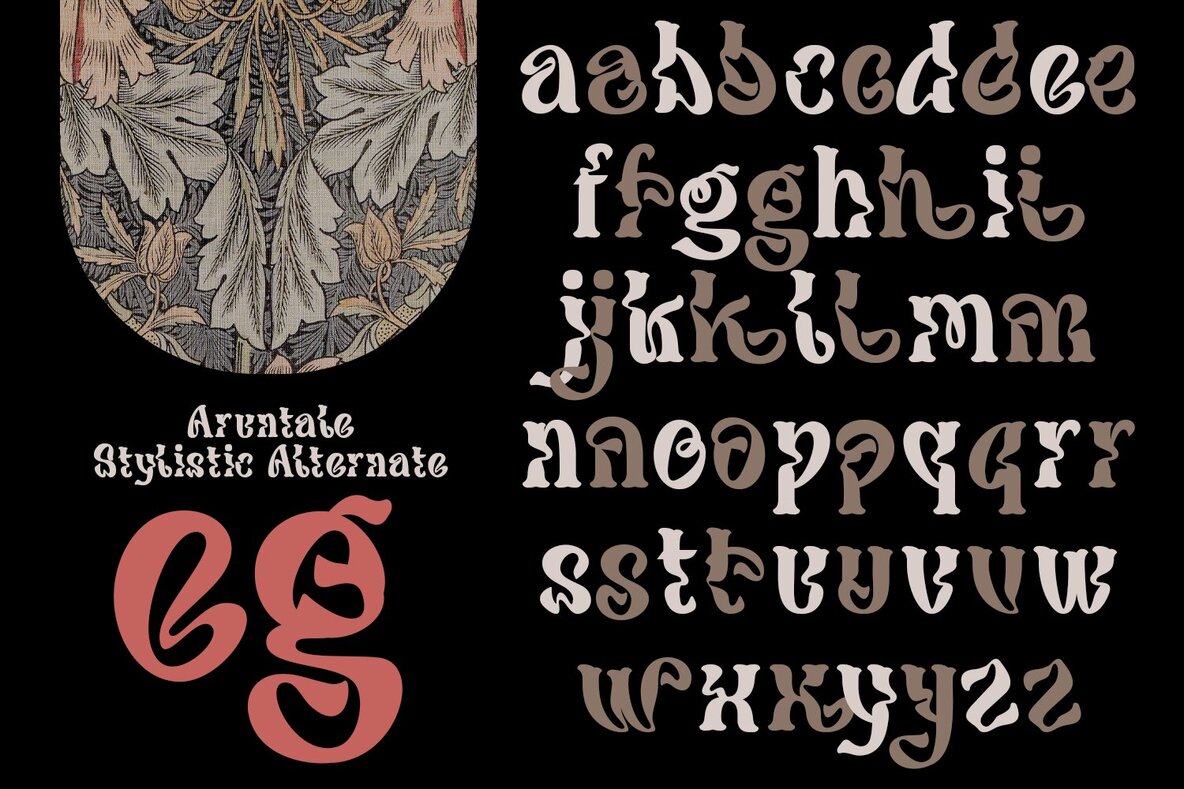
Aruntale Font
Aruntale
This retro display font features bold, curvy letterforms reminiscent of 1970s design trends. Its playful and whimsical style makes it perfect for nostalgic projects, eye-catching headlines, and unique branding elements. Ideal for designers looking to add a touch of vintage charm with a distinctive flair.